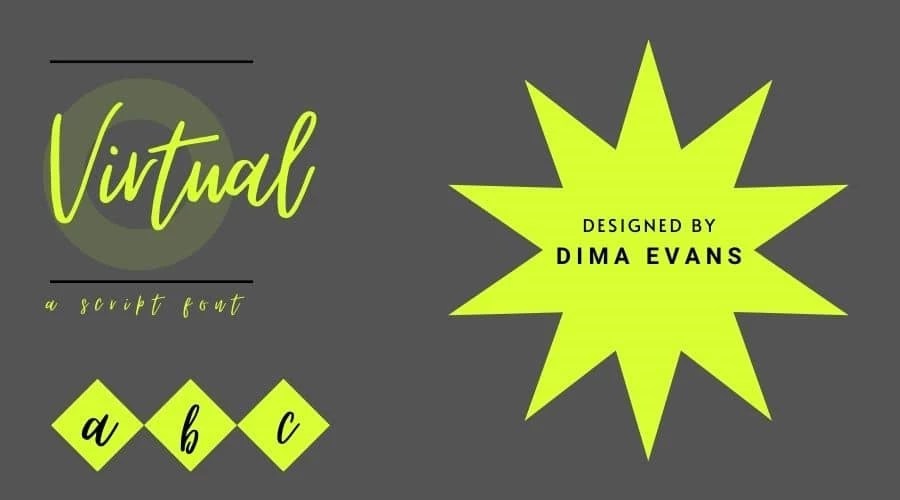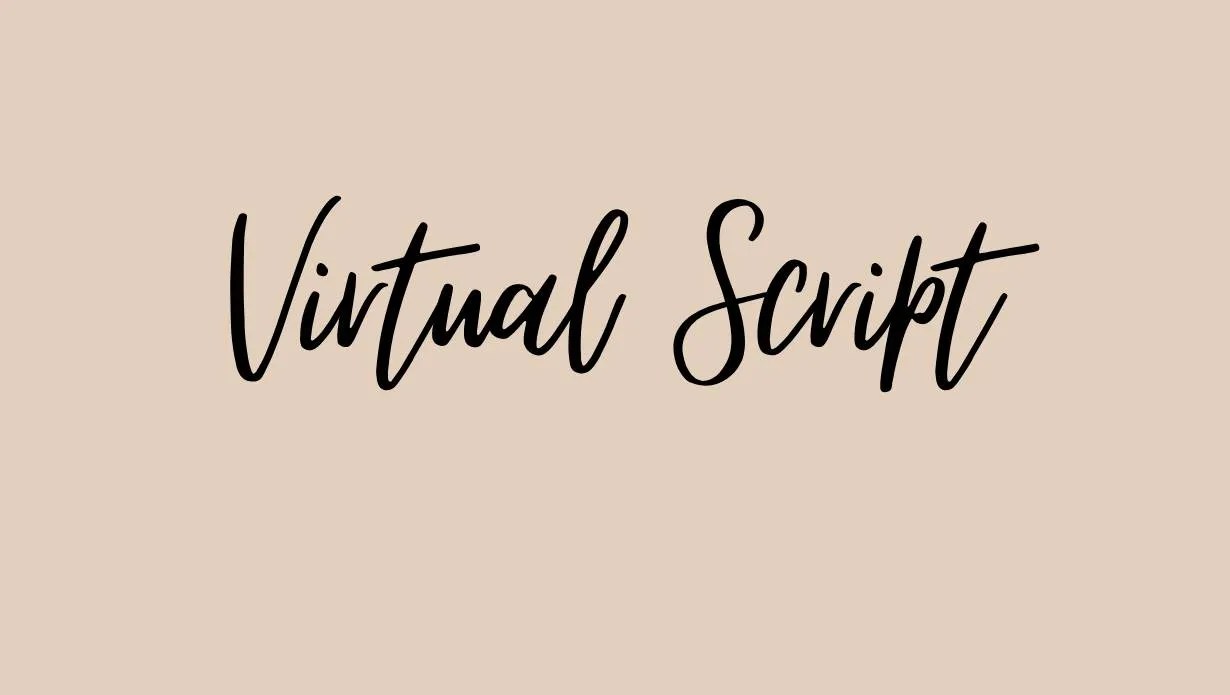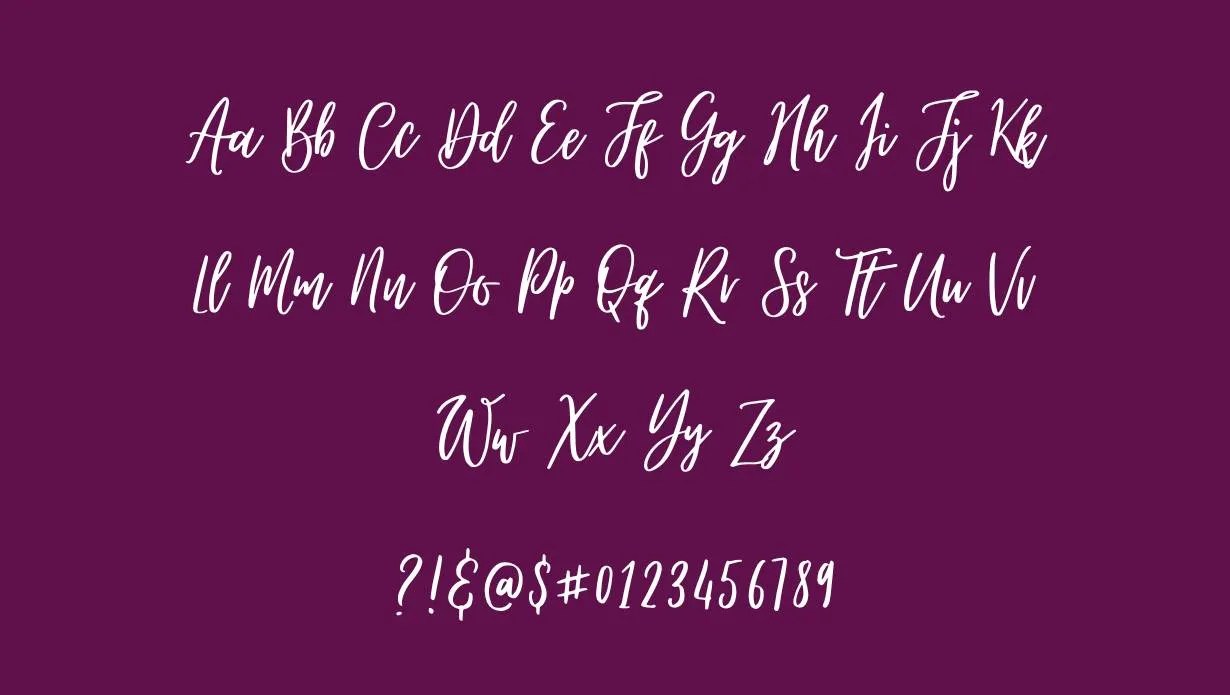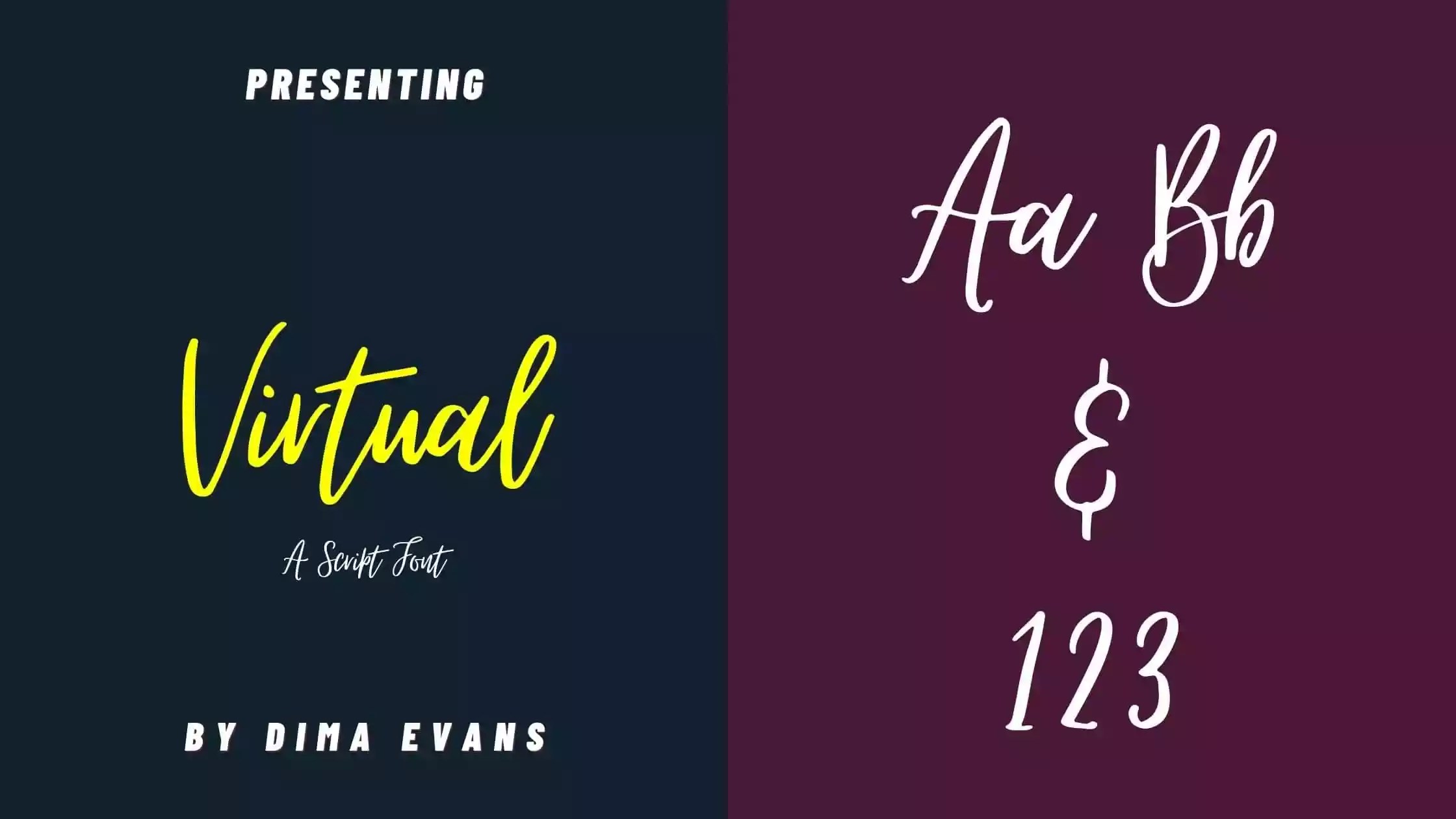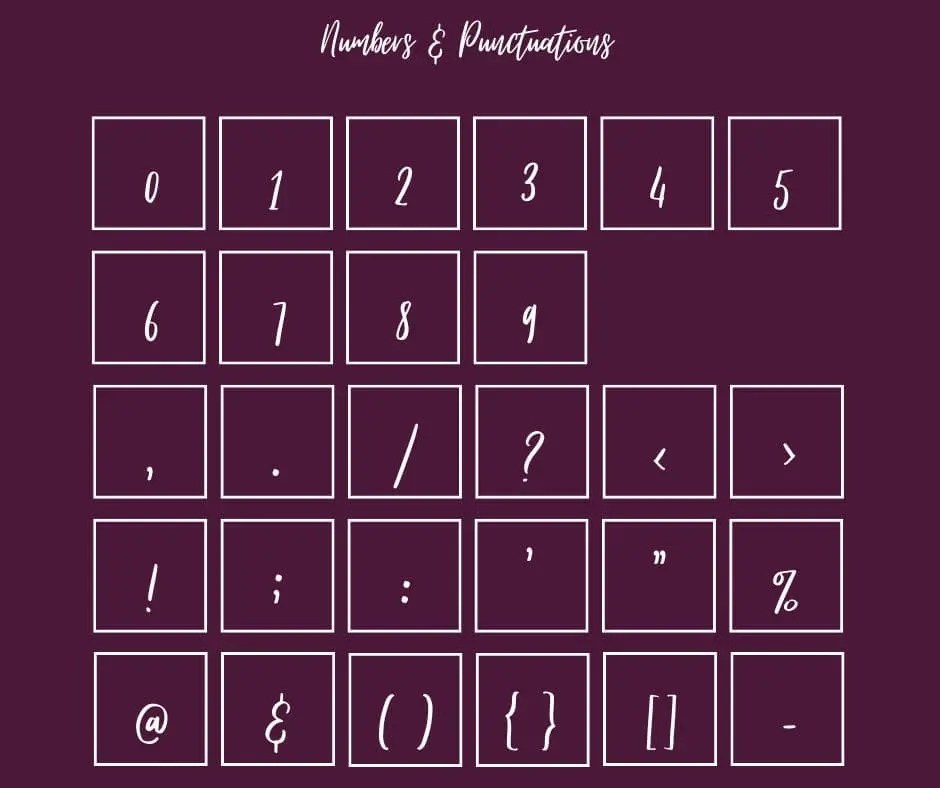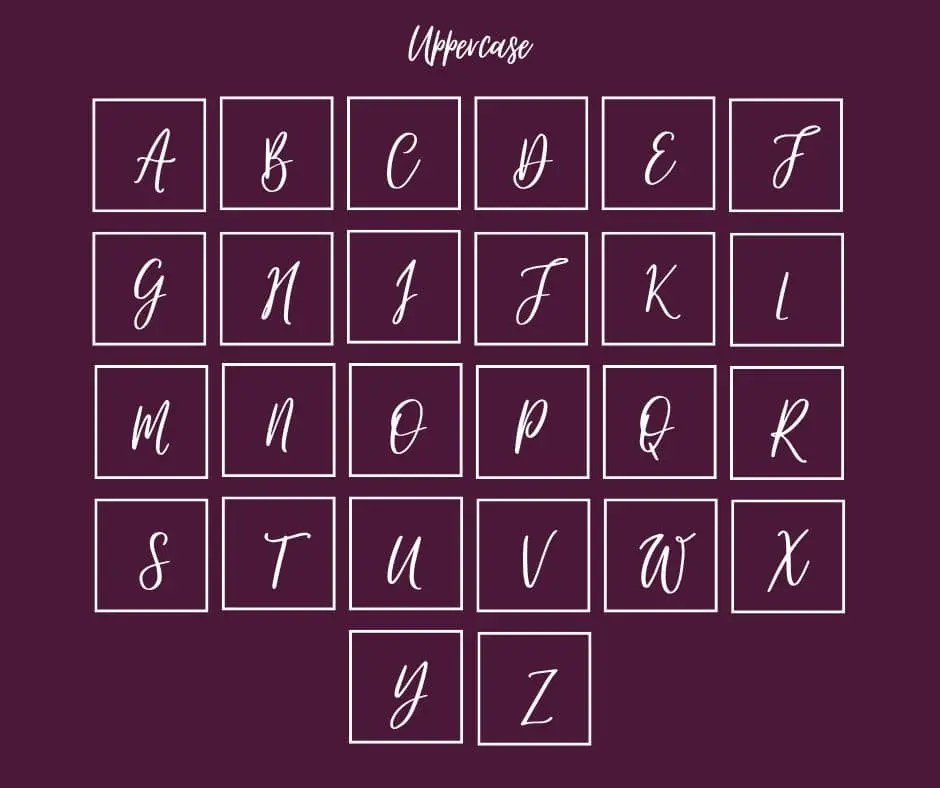
Virtual Script Font Free Download . milk peach € by four lines. script typefaces are based upon the varied and often fluid stroke created by handwriting, pretty much like the cursive fonts just. The virtual font is a simple font, comes with alternate symbols and some ligatures. Browse categories such as calligraphy, handwriting, script, serif and more. i just now launch my new font called “virtual”. download free fonts for windows and mac. virtual script font is a gorgeous and elegant handwritten font. The virtual font is a simple font, comes with alternate symbols and some ligatures. virtual script font is a funny handwritten script font designed and shared by dima evans. I keep this font looks elegant, readable,.
Browse categories such as calligraphy, handwriting, script, serif and more. The virtual font is a simple font, comes with alternate symbols and some ligatures. The virtual font is a simple font, comes with alternate symbols and some ligatures. milk peach € by four lines. I keep this font looks elegant, readable,. virtual script font is a funny handwritten script font designed and shared by dima evans. download free fonts for windows and mac. i just now launch my new font called “virtual”. script typefaces are based upon the varied and often fluid stroke created by handwriting, pretty much like the cursive fonts just. virtual script font is a gorgeous and elegant handwritten font.
Virtual Script Font Free Download virtual script font is a gorgeous and elegant handwritten font. virtual script font is a funny handwritten script font designed and shared by dima evans. The virtual font is a simple font, comes with alternate symbols and some ligatures. download free fonts for windows and mac. I keep this font looks elegant, readable,. i just now launch my new font called “virtual”. The virtual font is a simple font, comes with alternate symbols and some ligatures. milk peach € by four lines. virtual script font is a gorgeous and elegant handwritten font. script typefaces are based upon the varied and often fluid stroke created by handwriting, pretty much like the cursive fonts just. Browse categories such as calligraphy, handwriting, script, serif and more.
Virtual Font Free Download FreeFontDL Virtual Script Font Free Download i just now launch my new font called “virtual”. Browse categories such as calligraphy, handwriting, script, serif and more. script typefaces are based upon the varied and often fluid stroke created by handwriting, pretty much like the cursive fonts just. download free fonts for windows and mac. The virtual font is a simple font, comes with alternate. Virtual Script Font Free Download.
Virtual Script Free script fonts, Typography fonts, Expressive space Virtual Script Font Free Download Browse categories such as calligraphy, handwriting, script, serif and more. download free fonts for windows and mac. milk peach € by four lines. virtual script font is a funny handwritten script font designed and shared by dima evans. script typefaces are based upon the varied and often fluid stroke created by handwriting, pretty much like the. Virtual Script Font Free Download.
Virtual Font Free Download FreeFontDL Virtual Script Font Free Download virtual script font is a funny handwritten script font designed and shared by dima evans. The virtual font is a simple font, comes with alternate symbols and some ligatures. The virtual font is a simple font, comes with alternate symbols and some ligatures. Browse categories such as calligraphy, handwriting, script, serif and more. I keep this font looks elegant,. Virtual Script Font Free Download.
Beautiful FREE Script Font Roundup Expressions Vinyl Virtual Script Font Free Download script typefaces are based upon the varied and often fluid stroke created by handwriting, pretty much like the cursive fonts just. The virtual font is a simple font, comes with alternate symbols and some ligatures. I keep this font looks elegant, readable,. Browse categories such as calligraphy, handwriting, script, serif and more. The virtual font is a simple font,. Virtual Script Font Free Download.
Sparkling Script Font Free Download Creativetacos Virtual Script Font Free Download milk peach € by four lines. script typefaces are based upon the varied and often fluid stroke created by handwriting, pretty much like the cursive fonts just. i just now launch my new font called “virtual”. Browse categories such as calligraphy, handwriting, script, serif and more. download free fonts for windows and mac. virtual script. Virtual Script Font Free Download.
Virtual Script Font Free Download TMfonts Virtual Script Font Free Download i just now launch my new font called “virtual”. The virtual font is a simple font, comes with alternate symbols and some ligatures. virtual script font is a gorgeous and elegant handwritten font. virtual script font is a funny handwritten script font designed and shared by dima evans. I keep this font looks elegant, readable,. milk. Virtual Script Font Free Download.
25 Best Free Script Fonts Download for Commercial Use Fonts Graphic Virtual Script Font Free Download virtual script font is a funny handwritten script font designed and shared by dima evans. virtual script font is a gorgeous and elegant handwritten font. script typefaces are based upon the varied and often fluid stroke created by handwriting, pretty much like the cursive fonts just. download free fonts for windows and mac. I keep this. Virtual Script Font Free Download.
Virtual Script Font Free Download Free Fonts Vault Virtual Script Font Free Download virtual script font is a gorgeous and elegant handwritten font. download free fonts for windows and mac. virtual script font is a funny handwritten script font designed and shared by dima evans. script typefaces are based upon the varied and often fluid stroke created by handwriting, pretty much like the cursive fonts just. Browse categories such. Virtual Script Font Free Download.